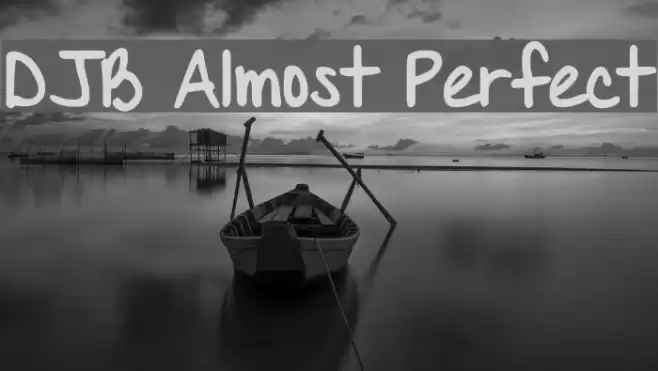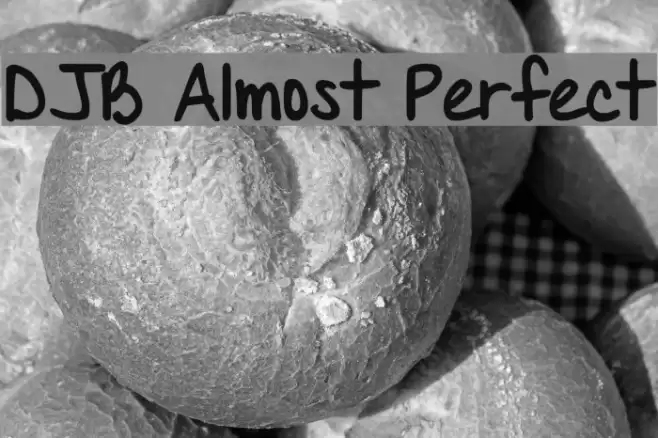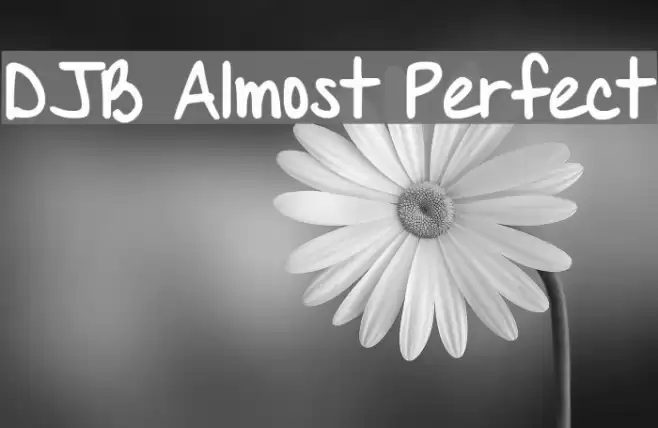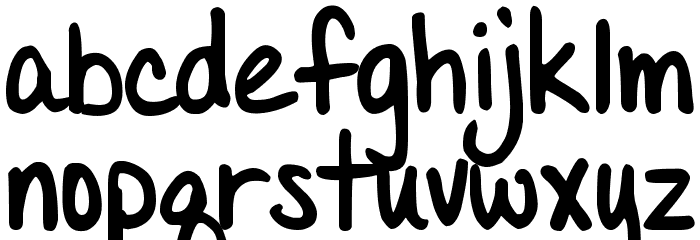
DJB Almost Perfect Font
DJB Almost Perfect Description
This playful and informal font features a handwritten style with a casual and approachable appearance. The letters are slightly irregular, giving it a charming, almost childlike quality. The strokes are bold and consistent, providing a strong presence on the page. The characters are well-spaced, ensuring readability while maintaining a whimsical feel. The font includes a full set of uppercase and lowercase letters, numbers, and a variety of special characters, making it versatile for various design needs. Its unique style is perfect for projects that require a personal touch or a fun, lighthearted vibe.
A playful, handwritten font with bold strokes and a casual, whimsical style from Uncategorized fonts.
- Proposed Projects: Ideal for greeting cards, children's books, playful branding, and informal invitations.
- Overall Style: Casual
- Use Case: Headlines, Informal text, Creative projects